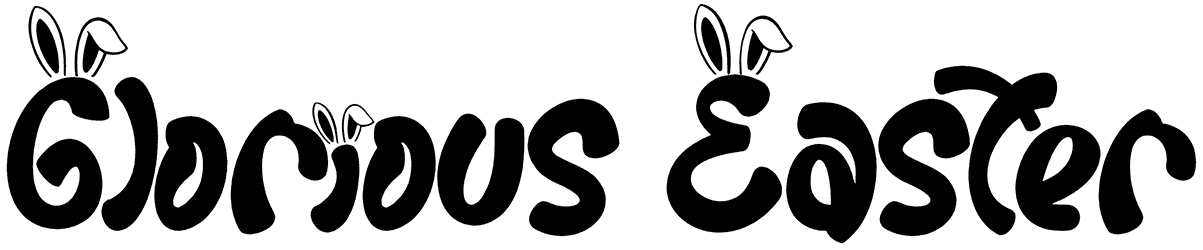
Glorious Easter Font
Little bunnies are here to help you create an adorable design. The characters of this bunny font are playful and appealing, and almost all of them are available. As an easter font, Glorious Easter can be a perfect selection for many layouts, like a kindergarten poster or a cheerful Resurrection Sunday event invitation card.